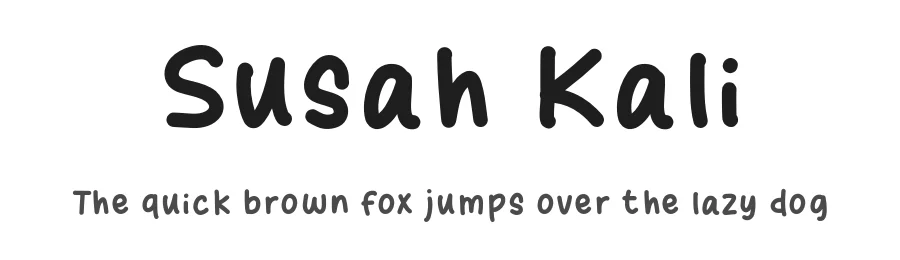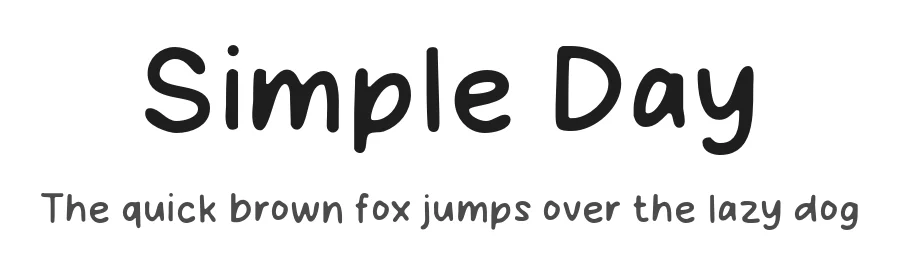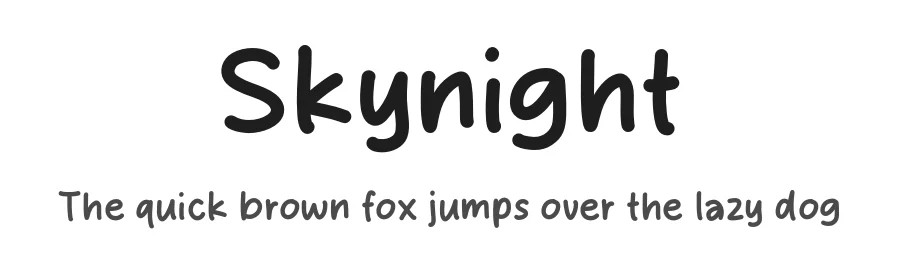
About QR Comic Font
QR Comic is a script & handwritten font designed by Abay Emes. It includes 219 glyphs, a regular weight, OTF (CFF) format, and 139 languages. QR Comic is free to download; check the license details on this page before commercial use. Script & handwritten fonts like QR Comic work best for wedding invitations, greeting cards, signatures, and elegant branding.
QR Comic Font is a script font that shines as a display or heading face. Pair it with a clean sans-serif or serif font for body text β the contrast creates a clear hierarchy while the two styles stay balanced and easy to read.
QR Comic Font
QR Comic Font is a script handwritten typeface by Abay Emes, ideal for logos, invitations, branding, and creative projects.